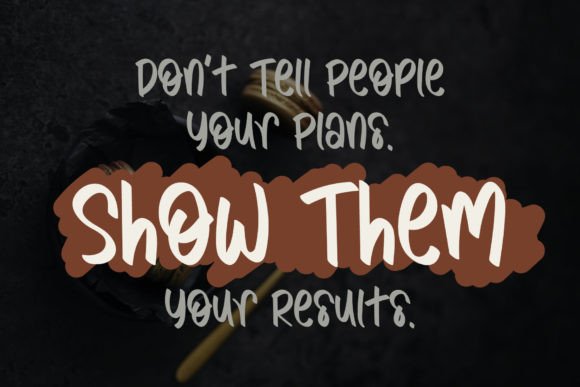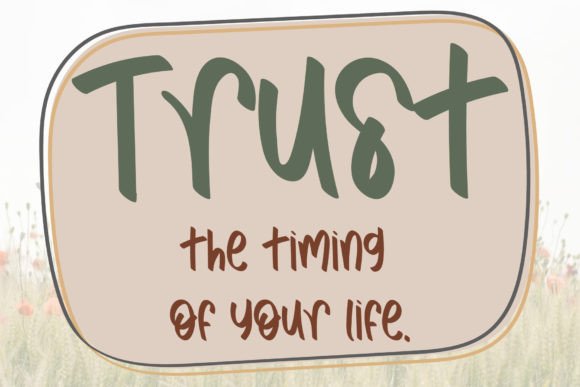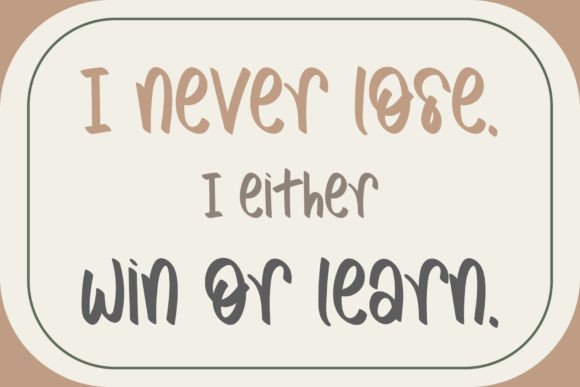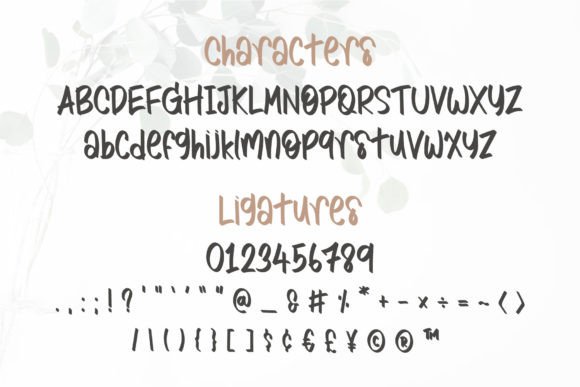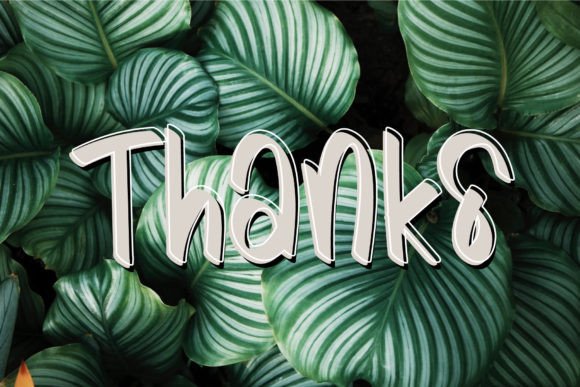
Gourmet Font
Introducing “Gourmet,” a simple and joyful handwritten font that brings a casual charm to your designs. This font’s down-to-earth appearance makes it not only readable but also incredibly versatile, fitting seamlessly into various contexts. Whether used on busy backgrounds or as a standalone headline, “Gourmet” has the flexibility to look outstanding in any design setting.
The casual charm of “Gourmet” adds a friendly and approachable quality to your text. This makes it suitable for a wide range of applications, from branding and headlines to invitations, posters, and more. Its versatility ensures that it can adapt to different design needs with ease.
Imagine “Gourmet” adding a touch of simplicity and joy to your creative projects. Picture it on posters, where it stands out as a standalone headline, or on busy backgrounds, where its readability remains intact. Whether your design requires a laid-back or vibrant feel, “Gourmet” is ready to contribute its charming and versatile style.
In summary, “Gourmet” is more than just a font; it’s a simple and joyful design asset. Embrace its casual charm confidently, knowing that it can enhance the visual appeal of your projects, making them outstanding and versatile. Let “Gourmet” be the choice that brings a down-to-earth and charming quality to your creative endeavors.